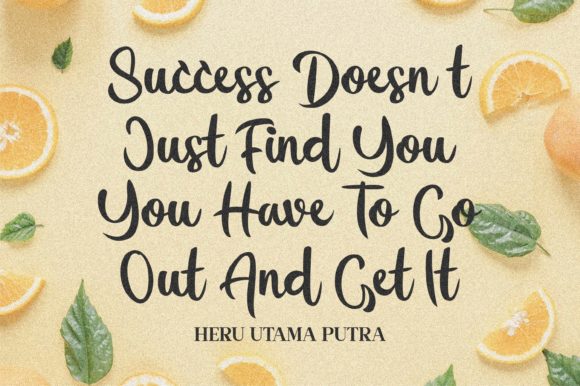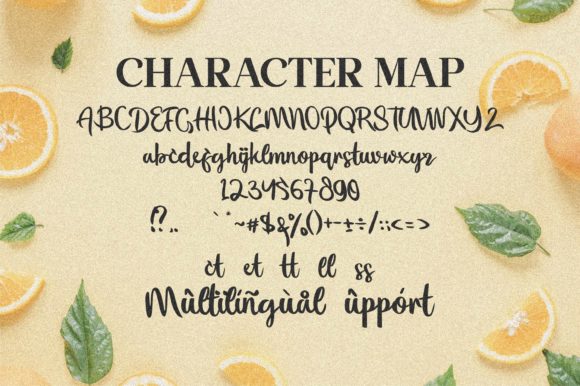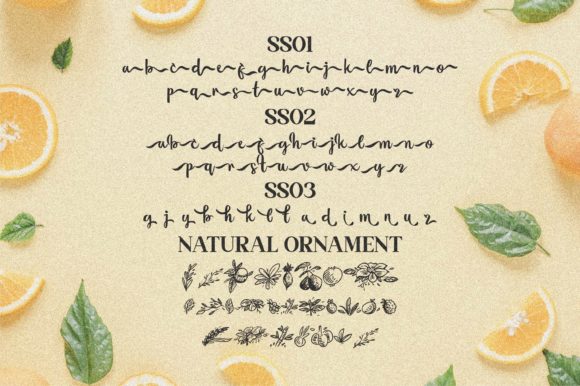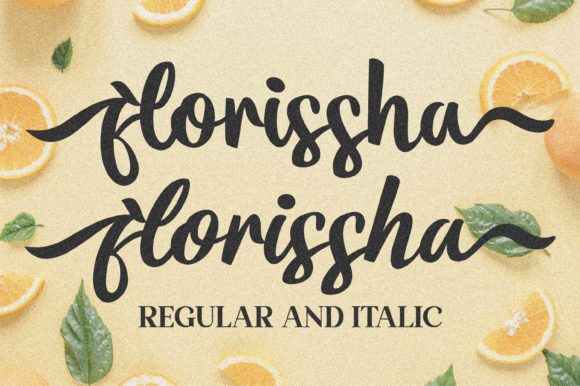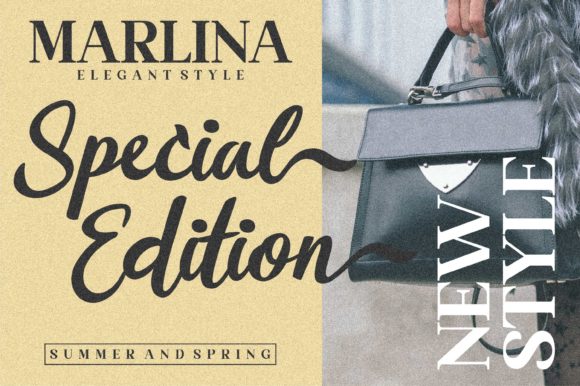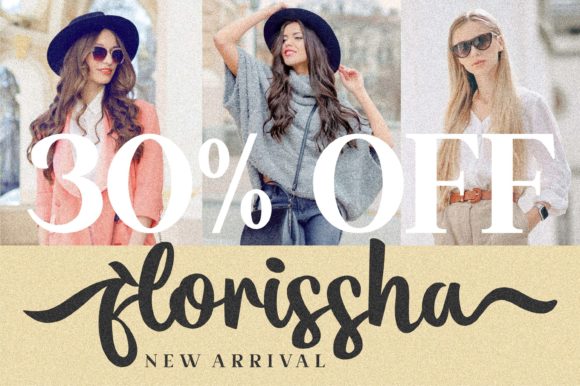
Introducing Florissha Font: The Epitome of Romantic and Sweet Calligraphy
In the world of typography, few fonts capture the essence of romance and sweetness as beautifully as Florissha Font. This exquisite calligraphy typeface is designed to make your designs stand out with its unique charm. Whether you’re working on a wedding invitation, a branding project, or simply crafting a heartfelt letter, Florissha Font is the perfect choice to add a touch of elegance and whimsy.
What Makes Florissha Font Special?
Florissha Font is characterized by its romantic and sweet calligraphy style, where characters seem to dance along the baseline. This movement creates a dynamic and lively feel, making your text stand out in a subtle yet impactful way. The font strikes a perfect balance between casualness and elegance, making it versatile for various design projects.
One of the standout features of Florissha Font is its PUA (Private Use Area) encoding. This means that accessing all the glyphs and swashes is incredibly easy, offering you a wide range of creative possibilities. With PUA encoding, you can effortlessly access and use the extended character set, including swashes, ligatures, and alternates, to add a personal touch to your designs.
Key Features of Florissha Font
- Romantic and Sweet Calligraphy: Florissha Font embodies a romantic and sweet aesthetic, perfect for designs that require a touch of elegance and charm.
- Casual yet Elegant: The font’s casual touch makes it approachable, while its elegant undertones ensure it remains sophisticated and refined.
- PUA Encoded: Enjoy easy access to all glyphs and swashes, allowing for greater flexibility and creativity in your designs.
- Dancing Characters: The unique baseline dance of characters adds a dynamic feel to your text, making it visually engaging.
- Versatile: Suitable for a wide range of projects, including wedding invitations, branding, packaging, and more.
Use Cases for Florissha Font
Florissha Font’s versatility makes it an excellent choice for various design projects. Here are some popular use cases:
- Wedding and Event Stationery: Add a romantic touch to wedding invitations, save-the-date cards, and event posters.
- Branding and Packaging: Elevate your brand’s aesthetic with elegant and unique typography that captures attention.
- DIY Crafts and Scrapbooking: Perfect for crafters, Florissha Font can be used to create personalized scrapbook pages, journal entries, and handmade cards.
- Digital and Social Media Graphics: Stand out on social media with beautifully designed graphics, quotes, and stories.
Tips for Using Florissha Font Effectively
To make the most of Florissha Font, consider the following tips:
- Mix and Match: Experiment with different glyphs and swashes to create unique combinations that reflect your project’s personality.
- Play with Sizes: Use varying font sizes to emphasize certain words or phrases, adding depth to your design.
- Pair with Simplicity: Balance the elegance of Florissha Font with simpler elements to avoid overwhelming your design.
Florissha Font is a beautiful addition to any designer’s toolkit, offering a perfect blend of romance, sweetness, and elegance. Its unique calligraphy style, ease of use thanks to PUA encoding, and versatility make it an excellent choice for a wide range of projects. Whether you’re a professional designer or a crafting enthusiast, Florissha Font is sure to inspire your creativity and enhance your designs. So, why wait? Dive into the world of Florissha Font and let your creativity dance along the baseline!